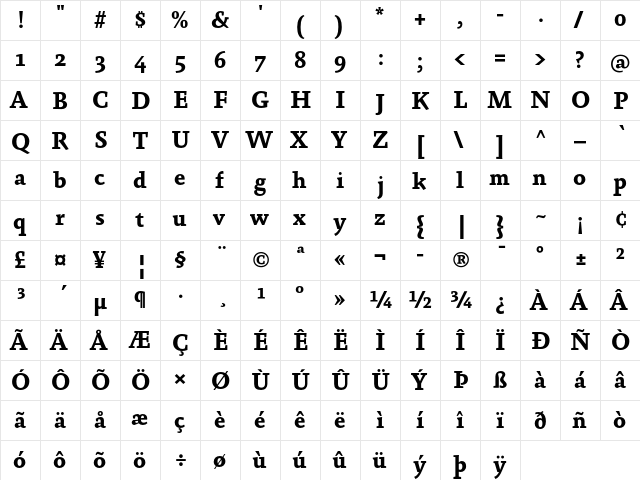
Absara Bold Regular Font Preview
Absara Bold Regular
Design Context for Absara Bold Typeface
Absara Bold is a composed and adaptable typeface that performs quietly and consistently across a wide range of design contexts. Its bold stroke weight gives it real presence on the page.